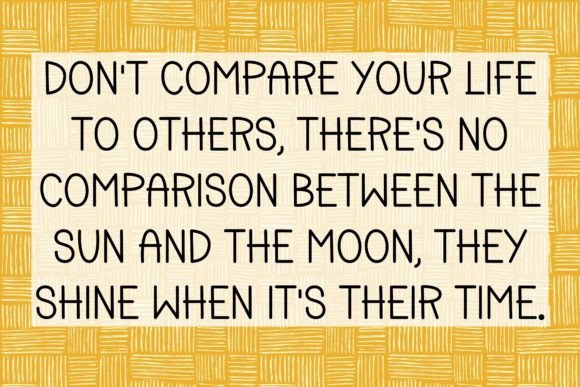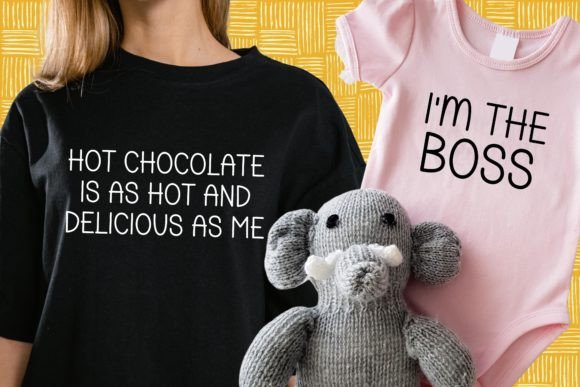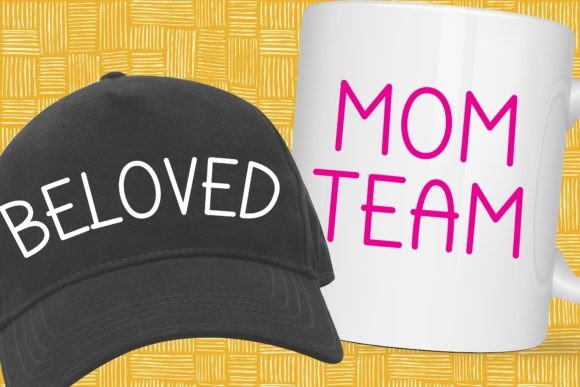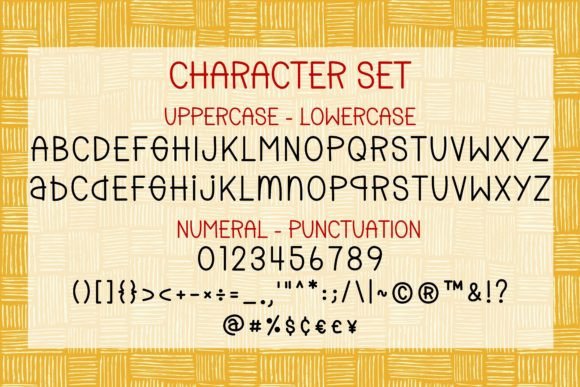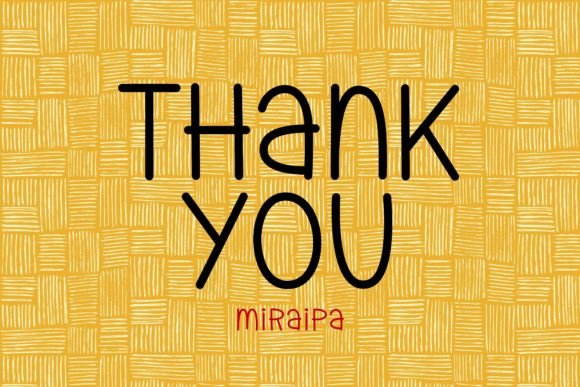
The Sweetest Font You’ll Ever Meet: Baked Pineapple
I still remember the design project that led me to discover Baked Pineapple. I was working on a branding project for a children’s party planning service, and I was struggling to find the perfect font that would convey a sense of playfulness and warmth. That’s when I stumbled upon Baked Pineapple, and it was love at first sight! ✨
This cute and charming handwritten sans serif font has been a game-changer for my designs, and I’m excited to share its sweetness with you. In this article, we’ll dive into the world of Baked Pineapple, exploring its features, how to use it, and some similar fonts you might love.
An Honest Review of Baked Pineapple
- ✨ Playful and friendly vibe: Baked Pineapple brings a delightful sweetness to any project, making it perfect for designs that require a touch of whimsy.
- ✅ Rounded letterforms: The font’s rounded edges and curves make it feel approachable and soft.
- ✅ Whimsical details: The font’s subtle details, such as the slight variations in letterform sizes, add to its charm.
- ✅ Versatile: Baked Pineapple works well for various design projects, from branding and invitations to social media graphics.
While Baked Pineapple is an amazing font, there are a few things to keep in mind: 🤔
- ⚠️ Limited use in formal designs: Due to its playful nature, Baked Pineapple might not be the best fit for formal or professional designs.
- ⚠️ Legibility at small sizes: As with many script fonts, Baked Pineapple might become less legible at very small sizes.
The Backstory of Baked Pineapple
Baked Pineapple was designed with the intention of capturing the warmth and playfulness of a summer evening. Imagine a font that feels like a refreshing pineapple sorbet on a hot day – that’s Baked Pineapple! 🍍
The designer aimed to create a font that would bring a smile to people’s faces and make their designs feel more approachable and friendly.
Q: What makes Baked Pineapple unique?
A: Baked Pineapple’s uniqueness lies in its perfect blend of playfulness and warmth, making it suitable for a wide range of design projects.
Q: Is Baked Pineapple suitable for body text?
A: While Baked Pineapple is beautiful, it’s best used for headings or short paragraphs due to its script nature and potential legibility issues at small sizes.